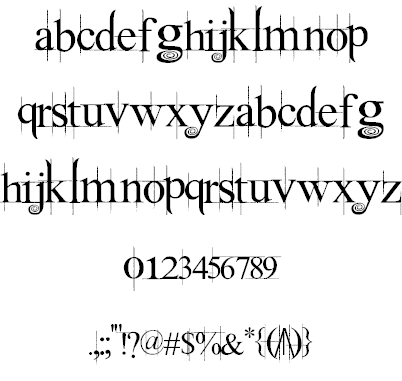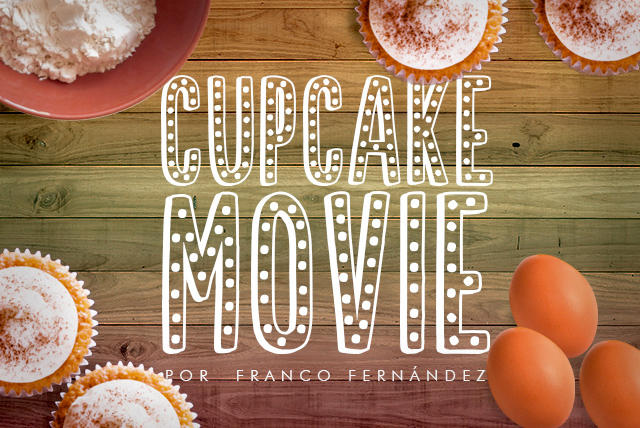
Fontmovie [Franco Alejo Fernández]
This Cordoba, Argentina-based cinephile is interested in movie posters. Known as FZ over at Fontspace, he offers these free "movie" fonts:
• From 2010: Alicia Wonderland (vampire script), Rango Movie Font, TRON, Coraline AZ, HarryPotter7, Navidad (after A Christmas Carol with Jim Carrey), Lumos Latino (another Harry Potter font), TRON muestre Cine 1, TSalvacion (a Terminator font), HPPoster (Harry Potter titling font), Inportante Cita, FrancoFont2.
• From 2011: Horrible Jefe (based on the movie Quiero matar a mi jefe), Vampire, Hugo Cabret (after the movie Hugo in 3D).
• From 2012: FrankenweenieMoviePoster (after Tim Burton's movie).
• Typefaces from 2014: Upon a Dream Maleficent, Godzilla Moviefont, Boxtrolls.
• Typefaces from 2015: Spectre 007, Snoopy (after a 2011 font by Charles Schultz and Nate Piekos).
• Typefaces from 2016: Squad Font (a brush script; after Suicide Squad), The Huntsman, Bob Sponge (after a Spongebob movie), BFG Font, SuicideSquadFont, Cupcake Movie, DeadpoolMovie, Zootopia, AnimalesFantastic (after Fantastic Beasts and Where We Can Find Them), Ninja Turtles, Dr. Charmed (after the movie Doctor Strange).
• Typefaces from 2017: Wedding Garden (a scribbly font), A Cure For Wellness (based on the movie), Anderson's Cupcakes, Kong (based on Kong Skull Island), The Girl On The Train Font, A Monster Free (from A Monster Calls).